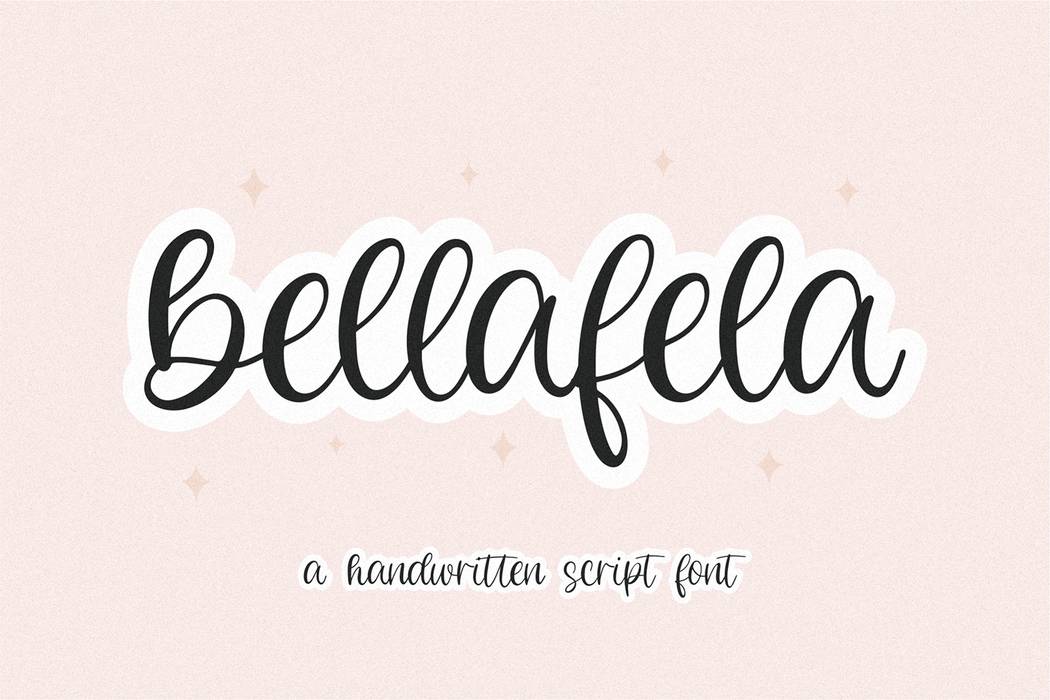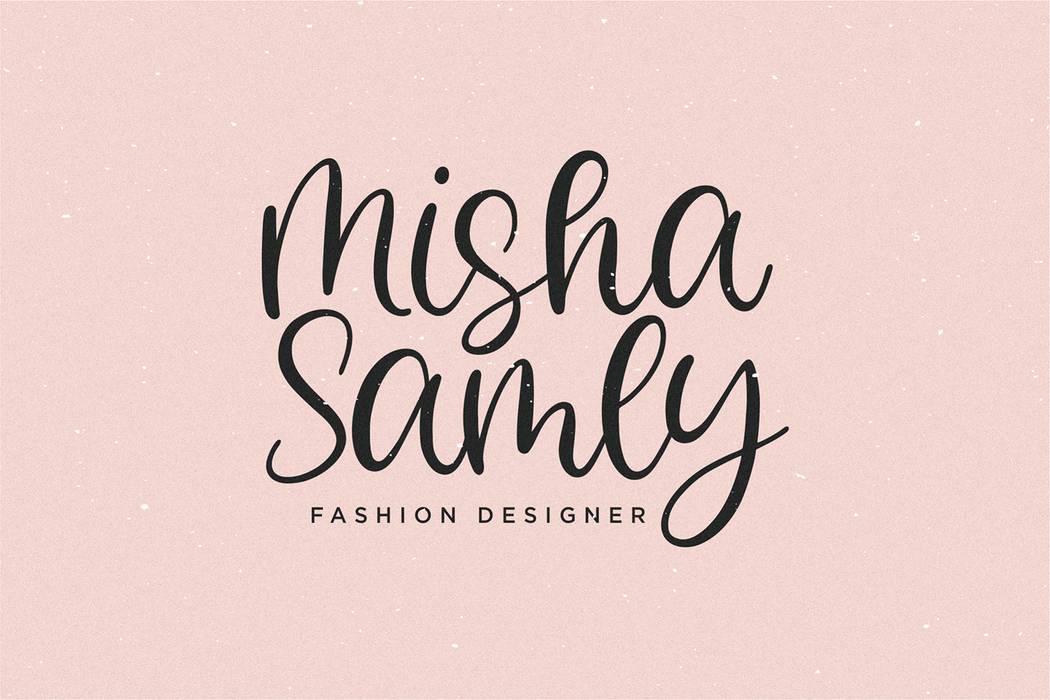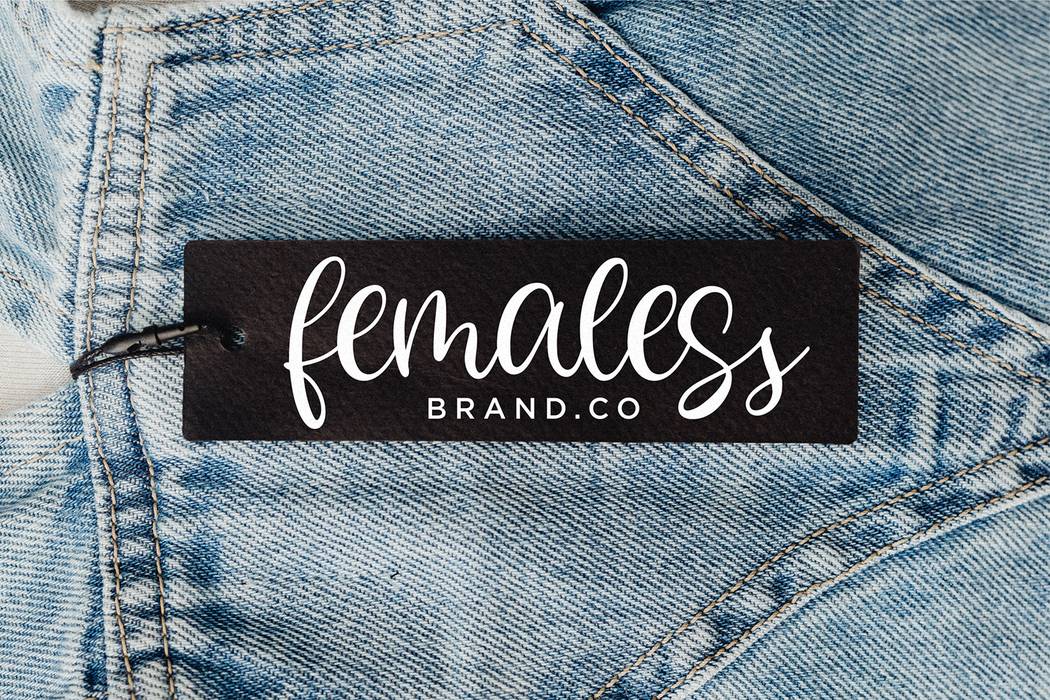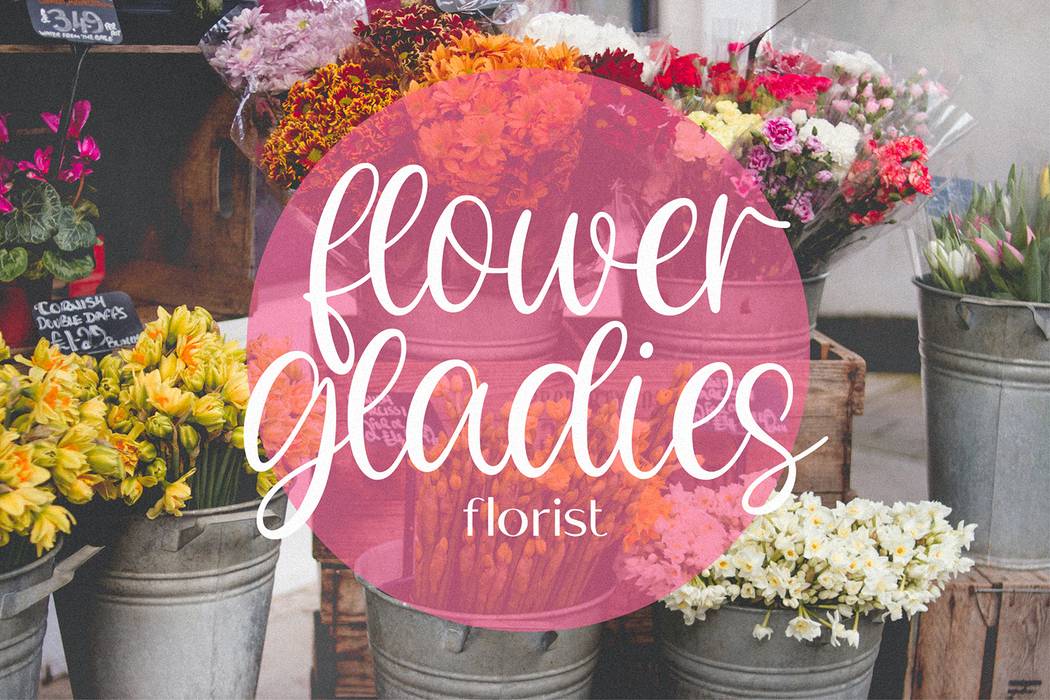
Bellafela is a lively and elegant script font with a friendly, handwritten feel. Its smooth, flowing strokes and moderate contrast give it a modern yet approachable style, making it perfect for invitations, branding, and creative design projects where a personal touch is desired. This font shines in settings that call for warmth and sophistication without sacrificing readability.
Bellafela Font
About Bellafela Font